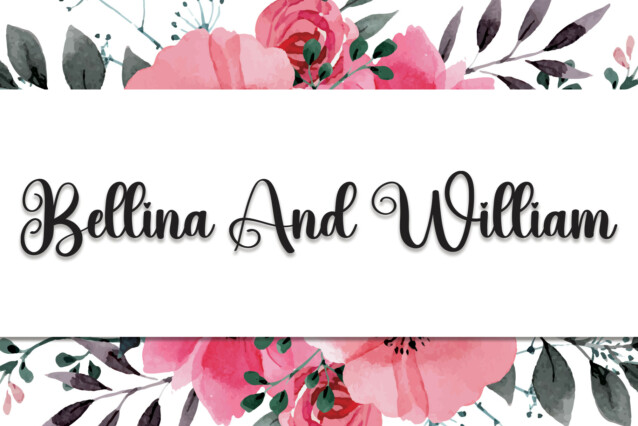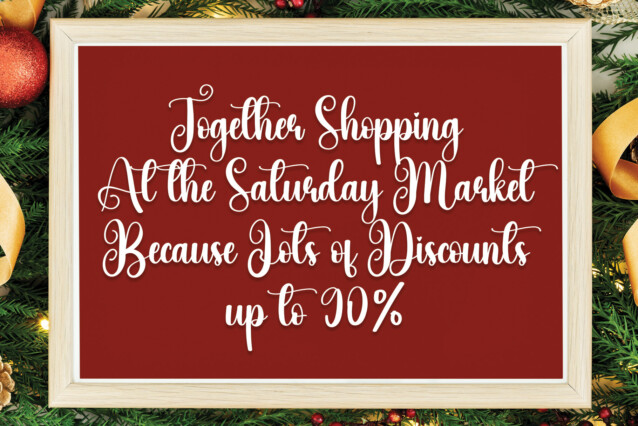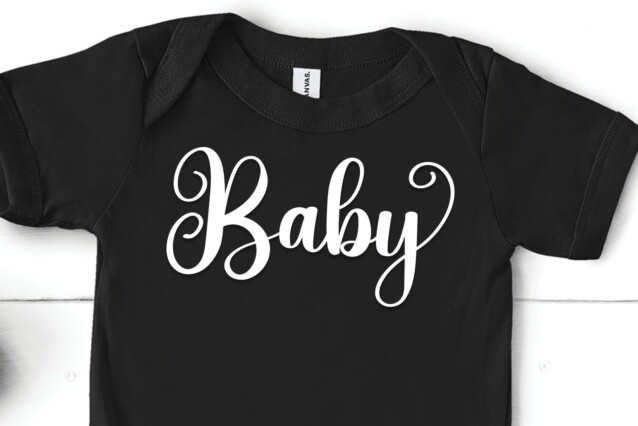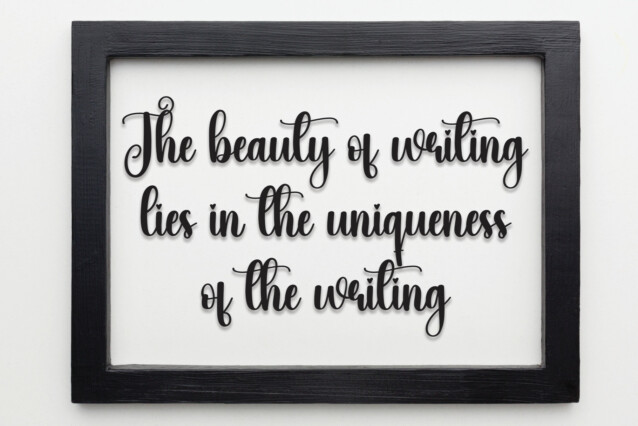
Baby Christmas Script Font
Baby Christmas Script Font is a stylish and delicate script font. It has a clean, thin, and smooth vibe and it will be a hit for any design that you want to add it to.